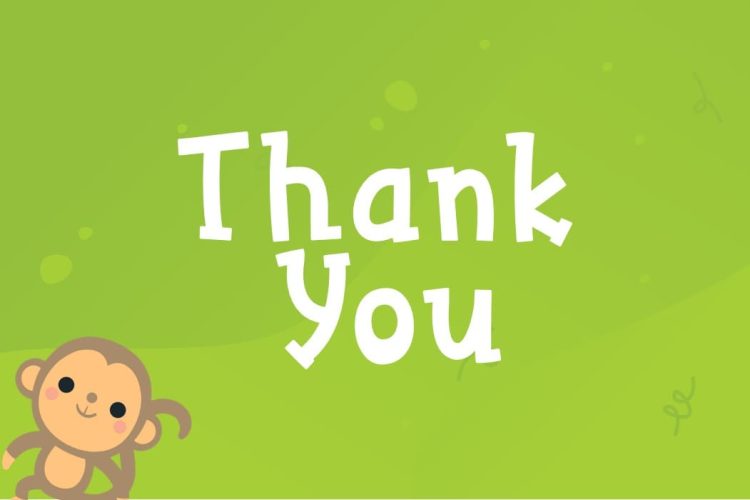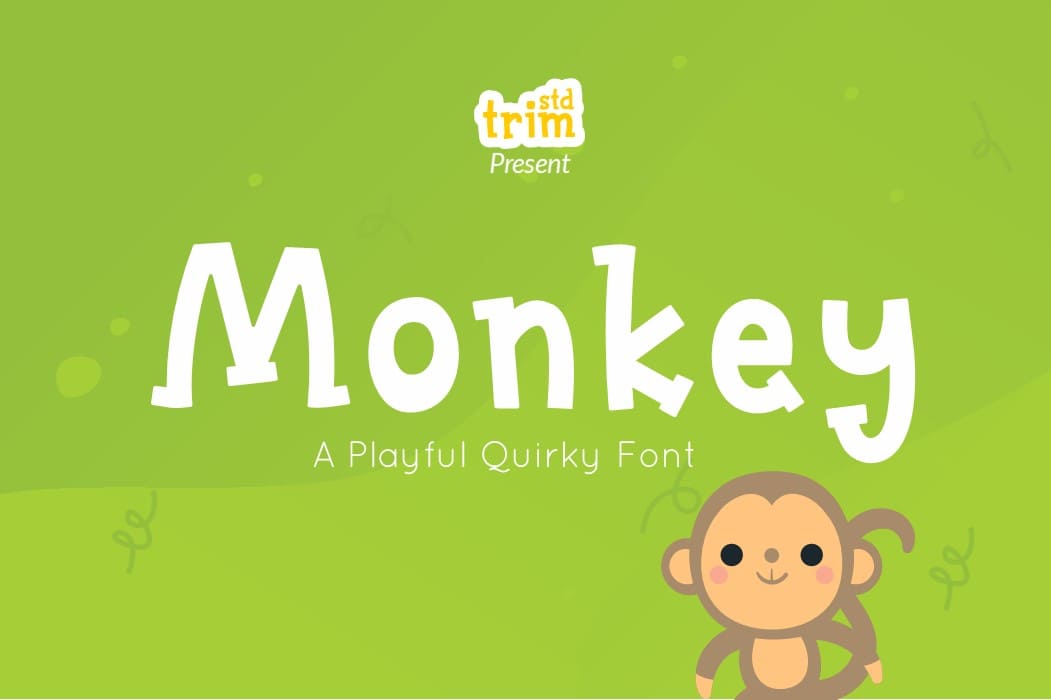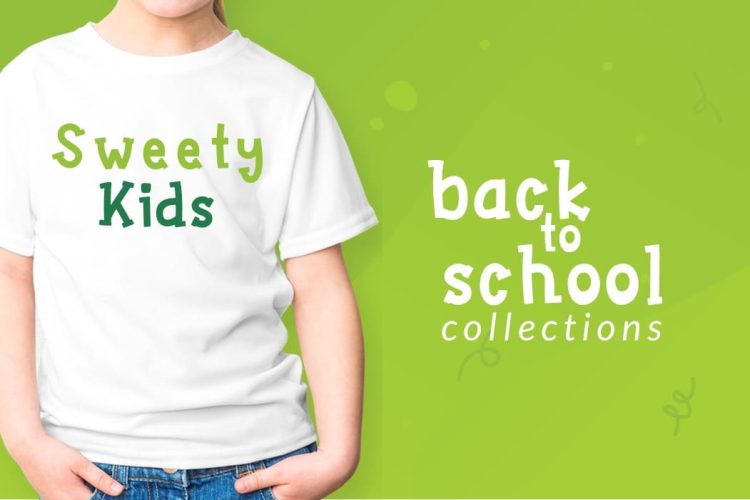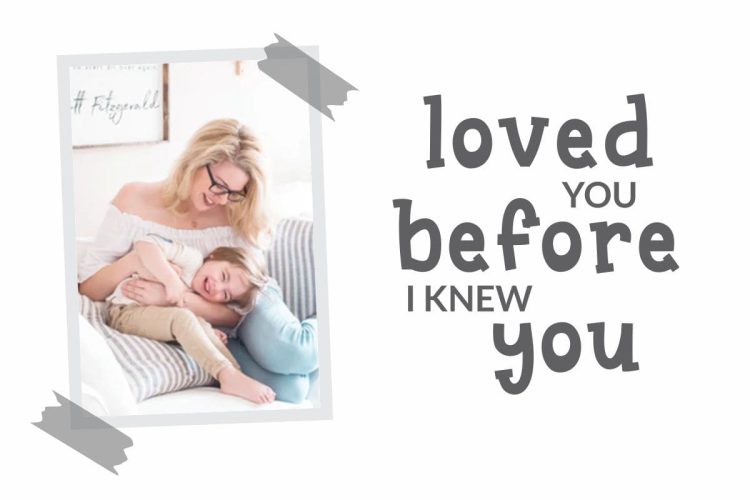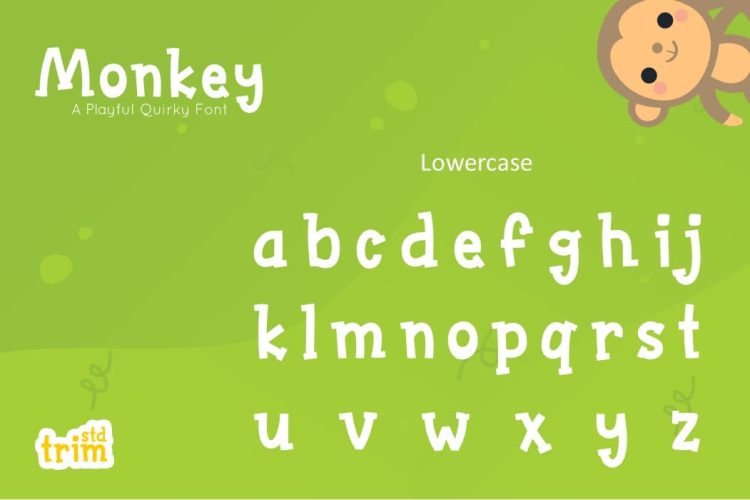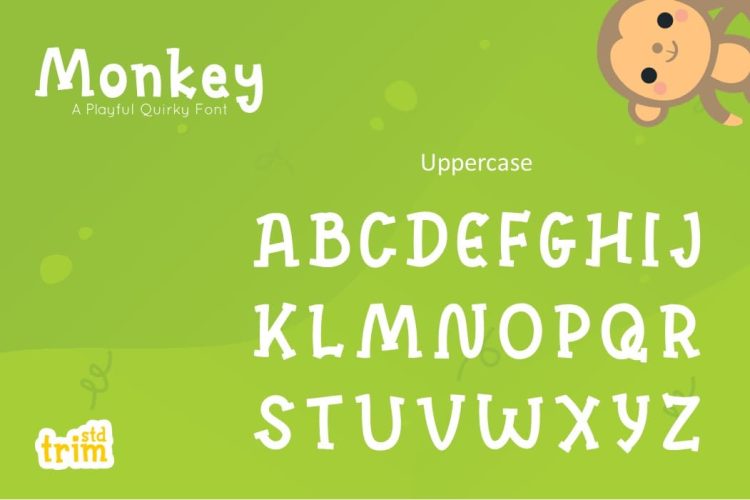
Monkey is a quirky display font with a joyful vibe. It is perfect for any kids-themed crafting projects!Trimstd is amazing
Monkey – Playful Quirky Display Font